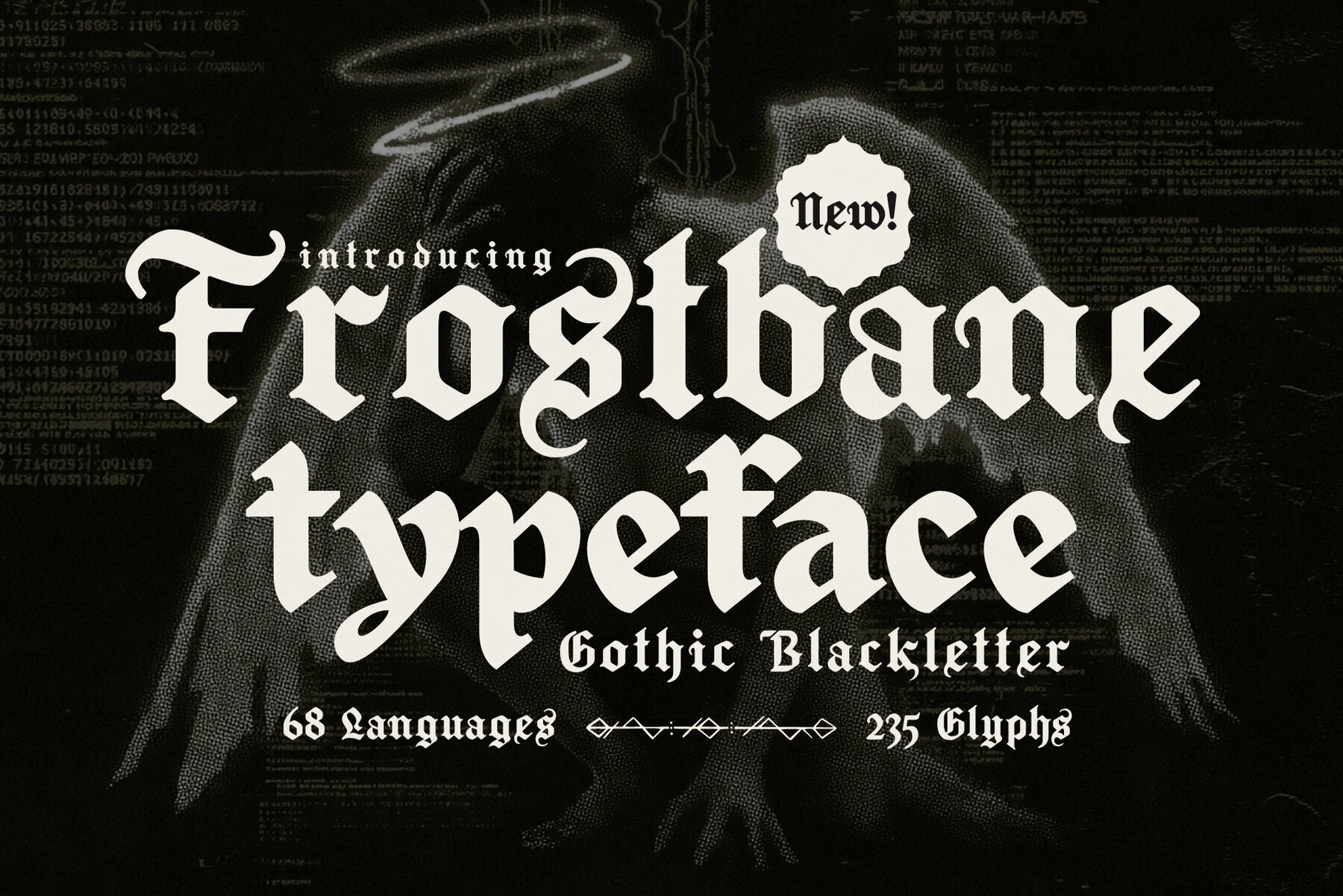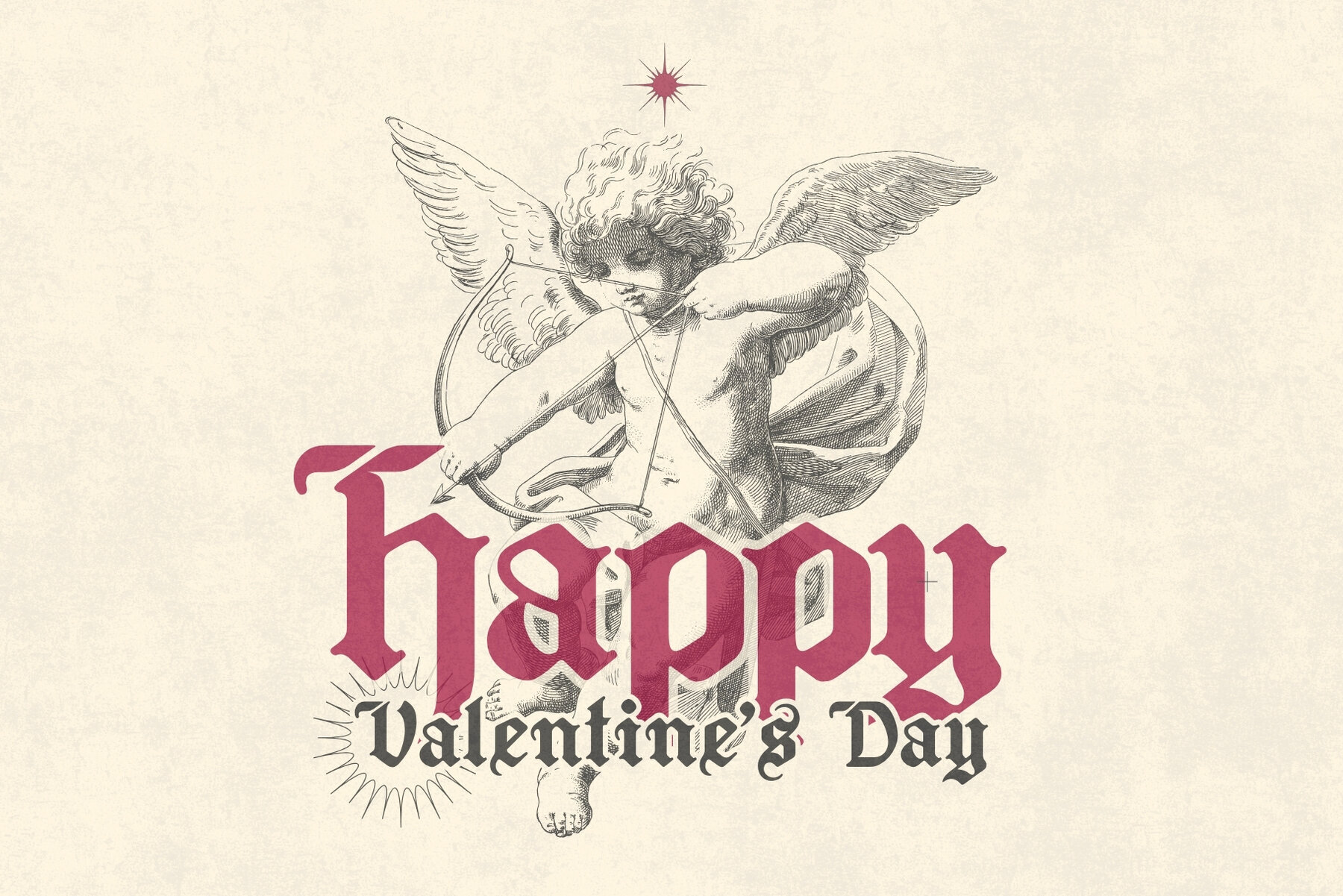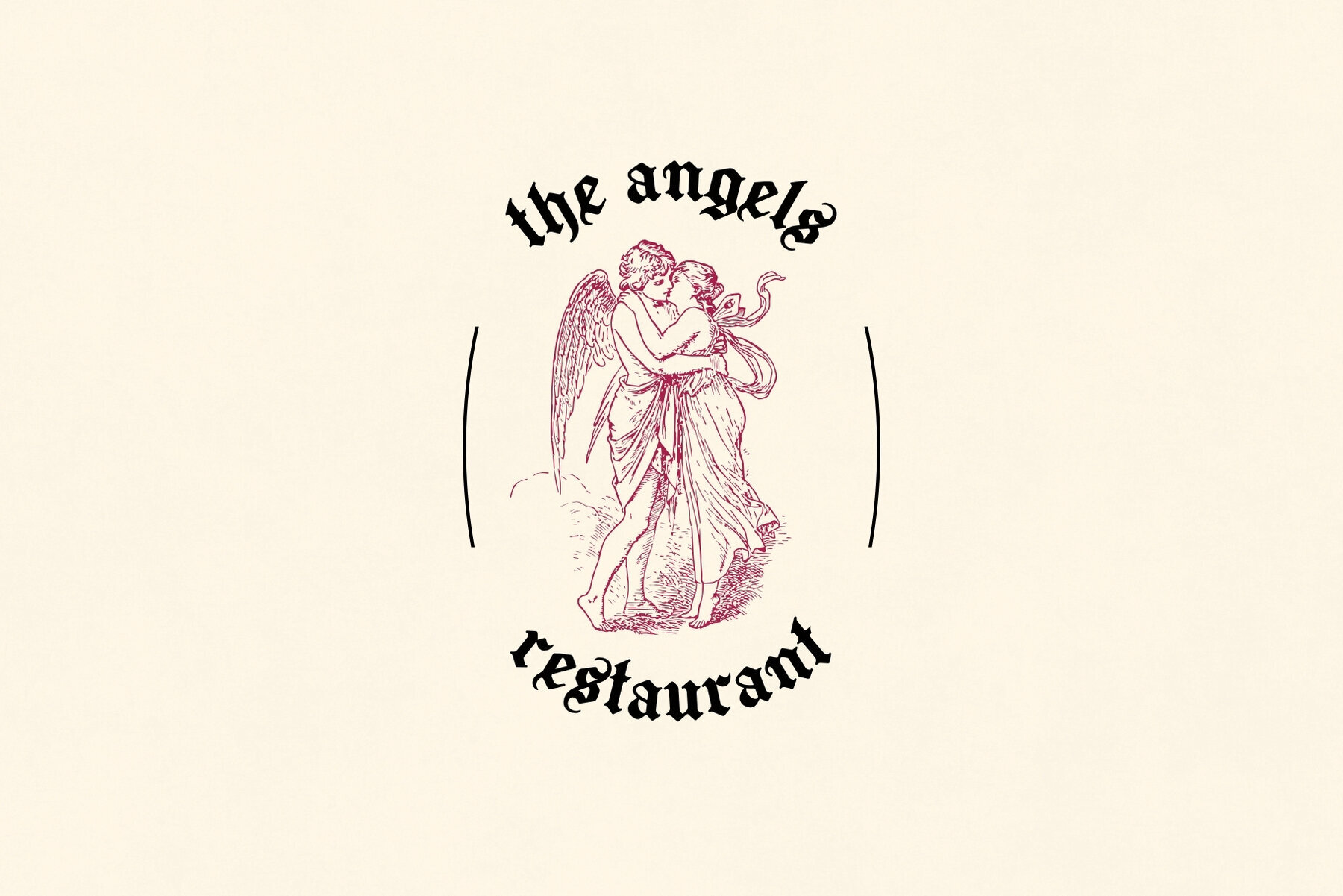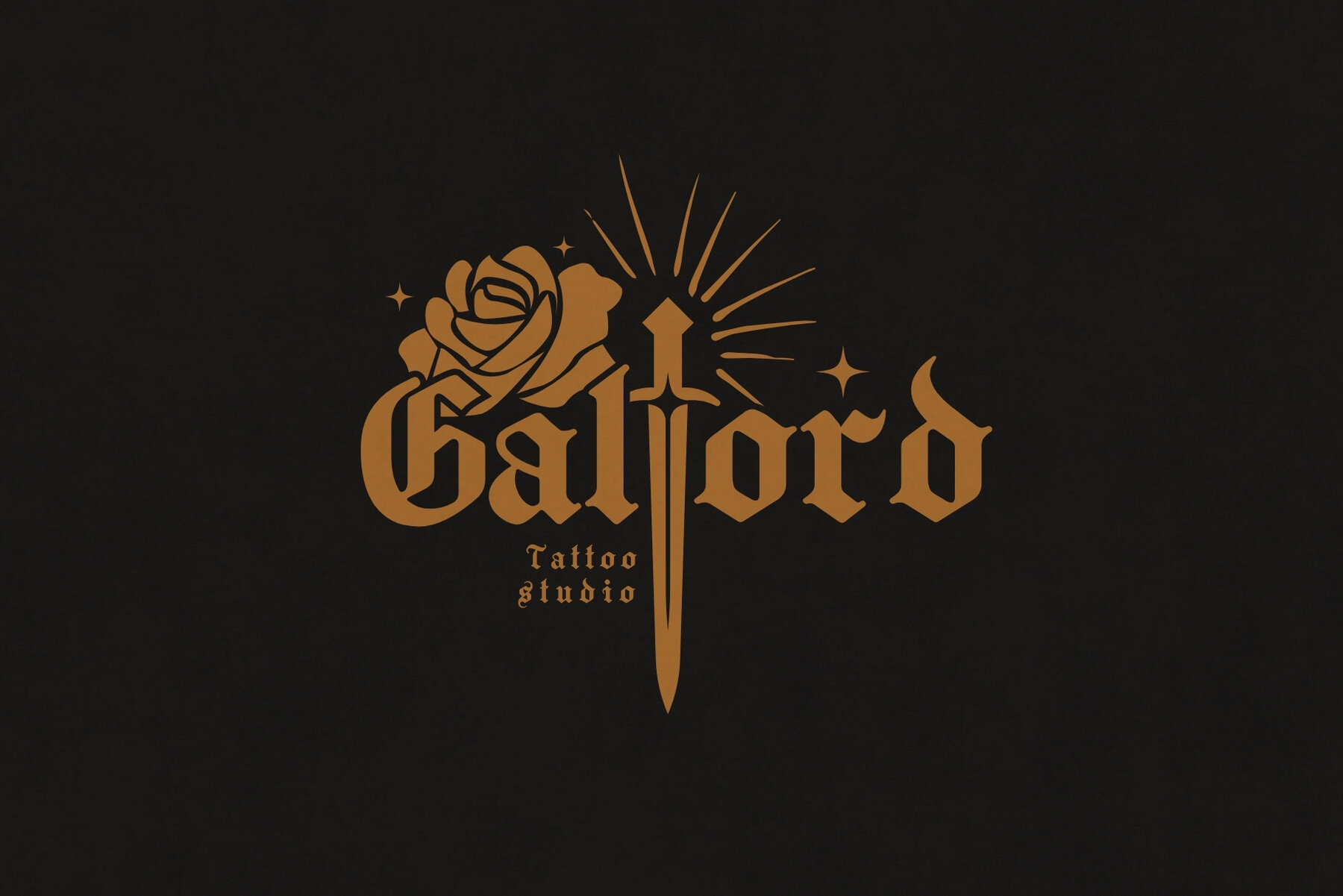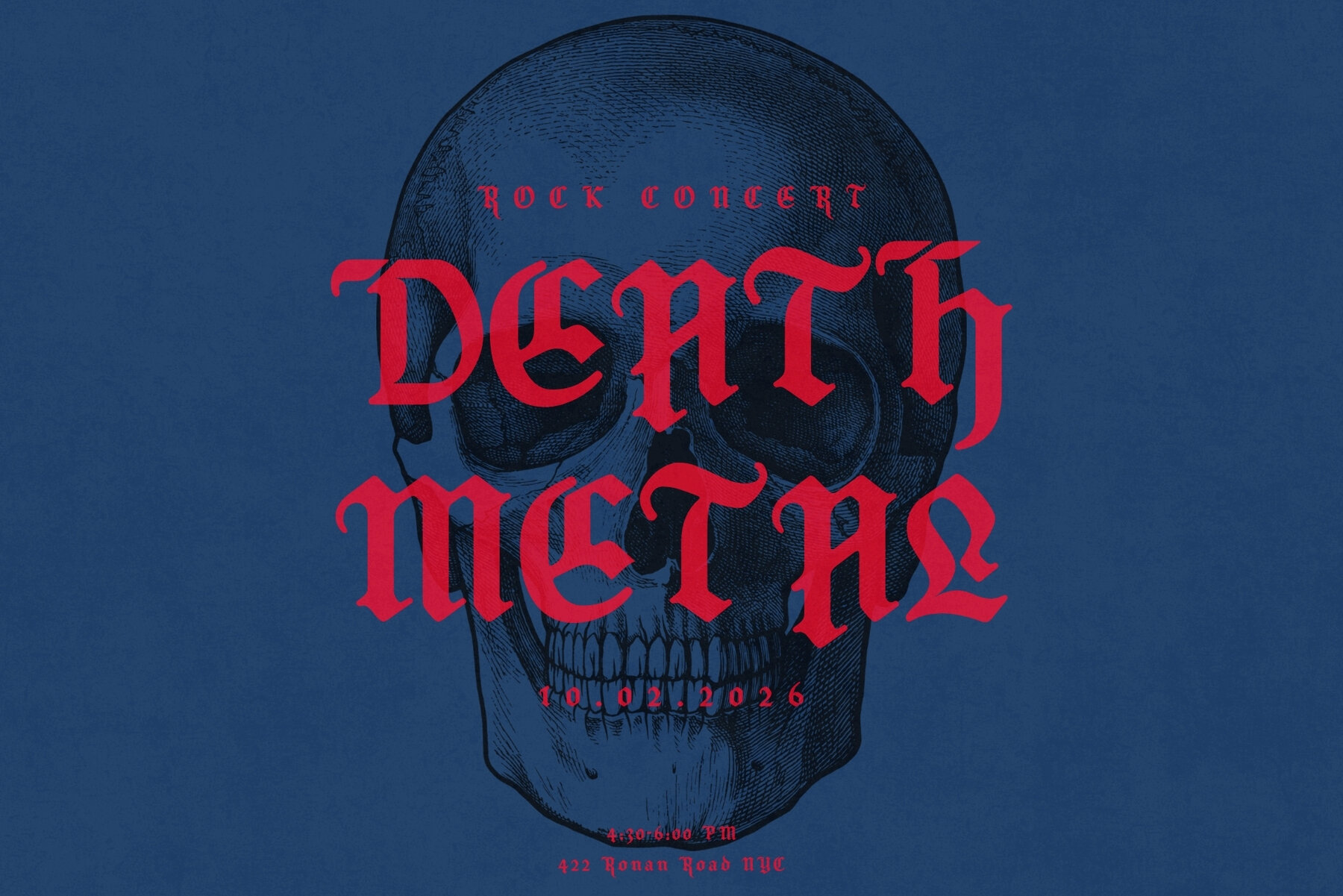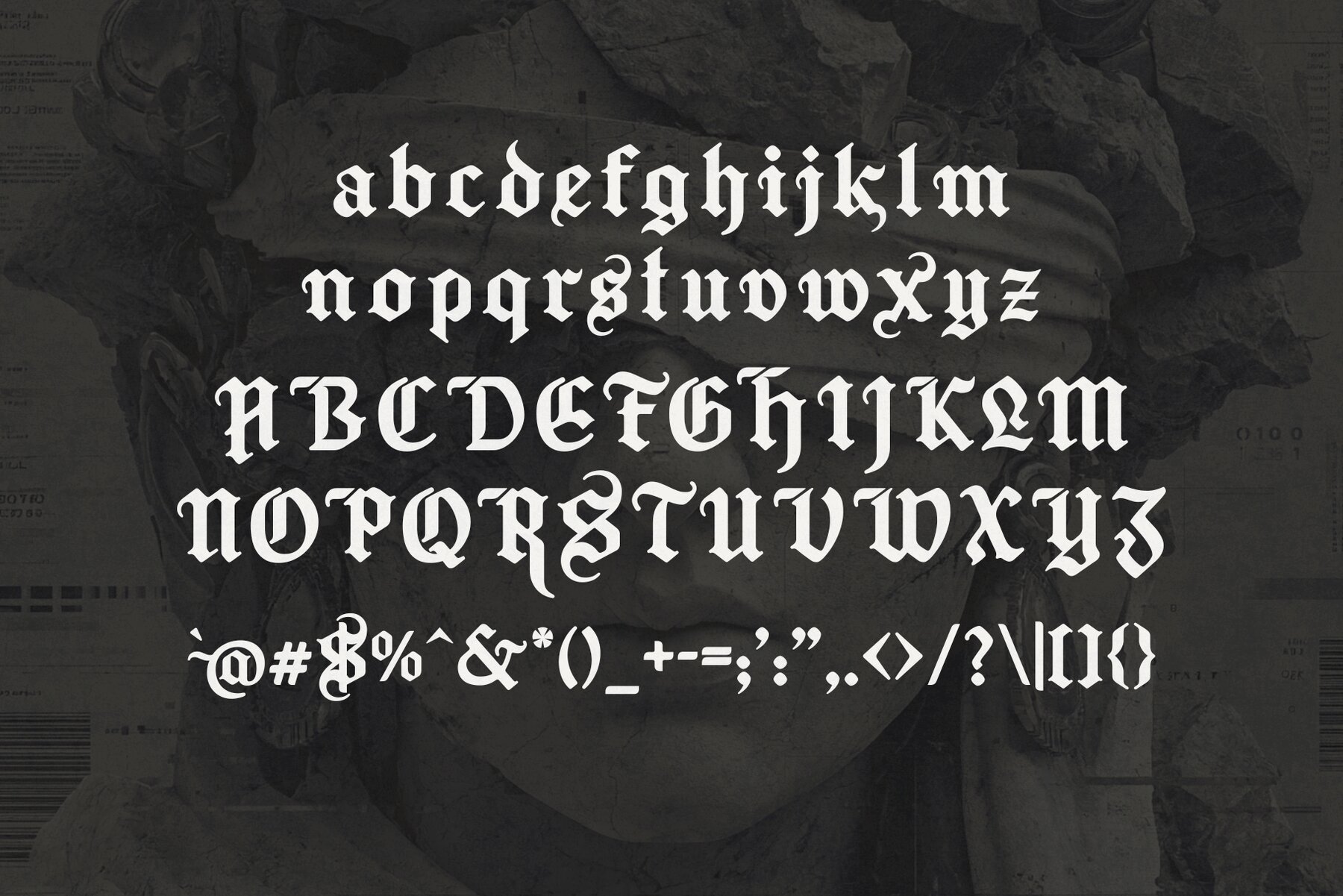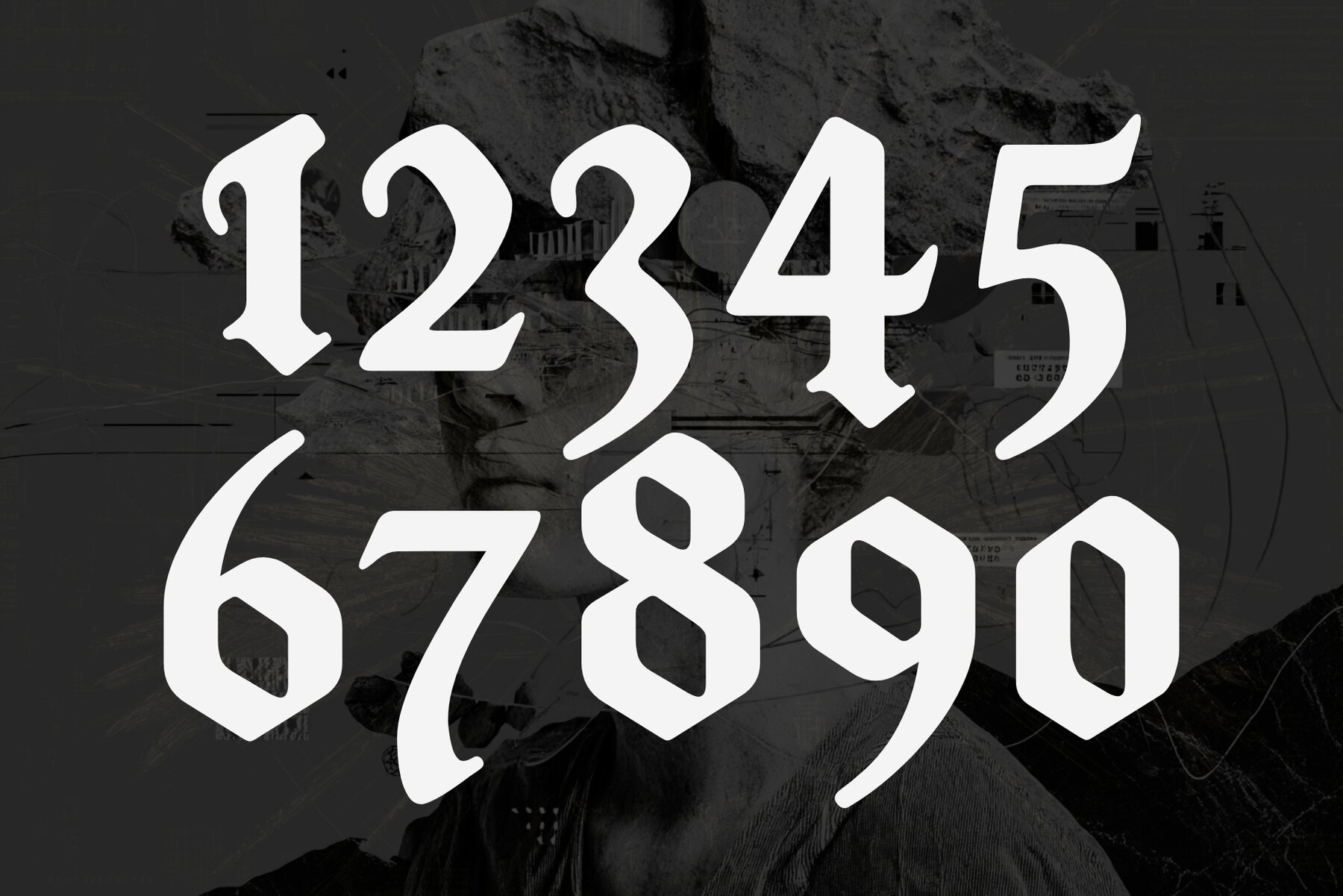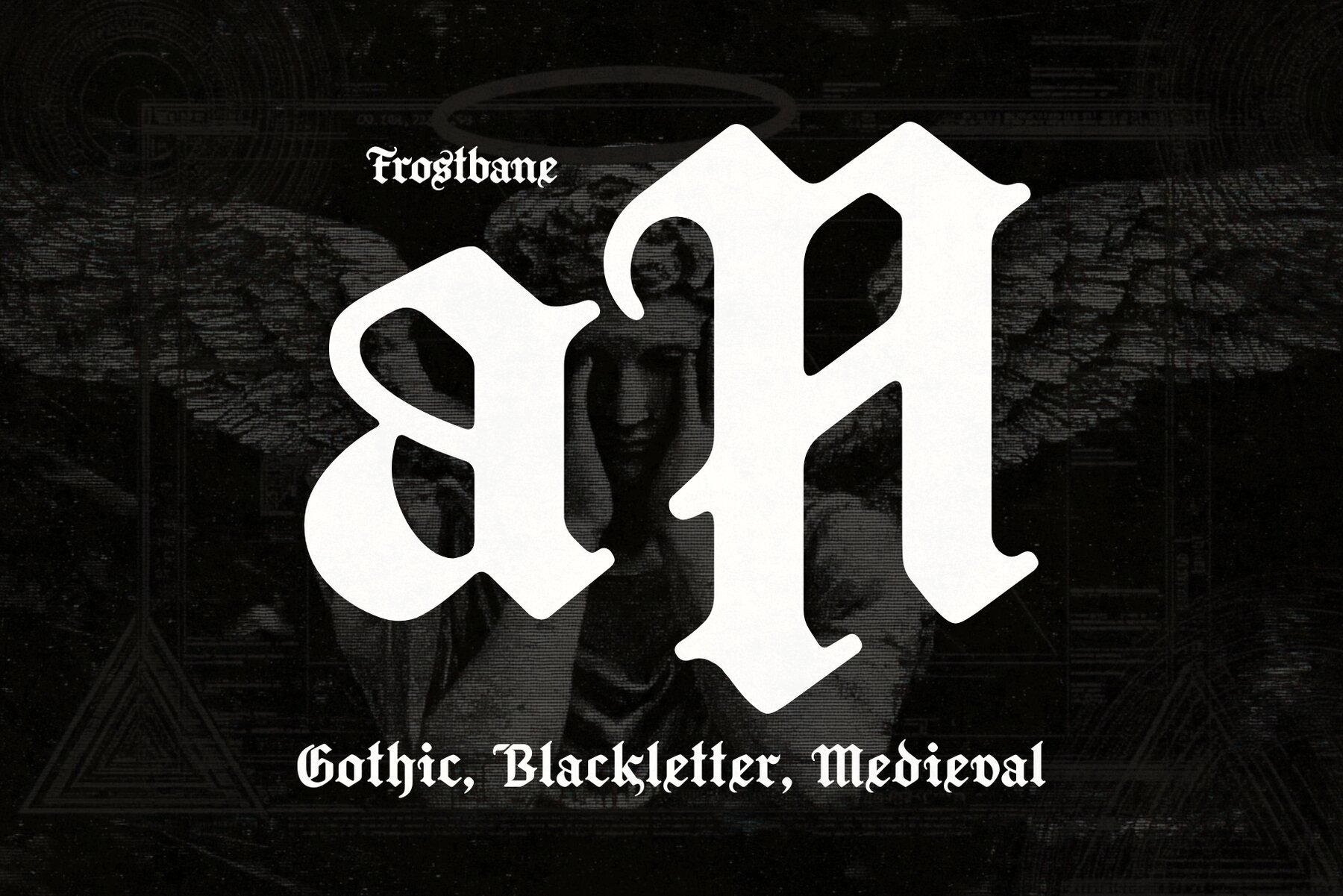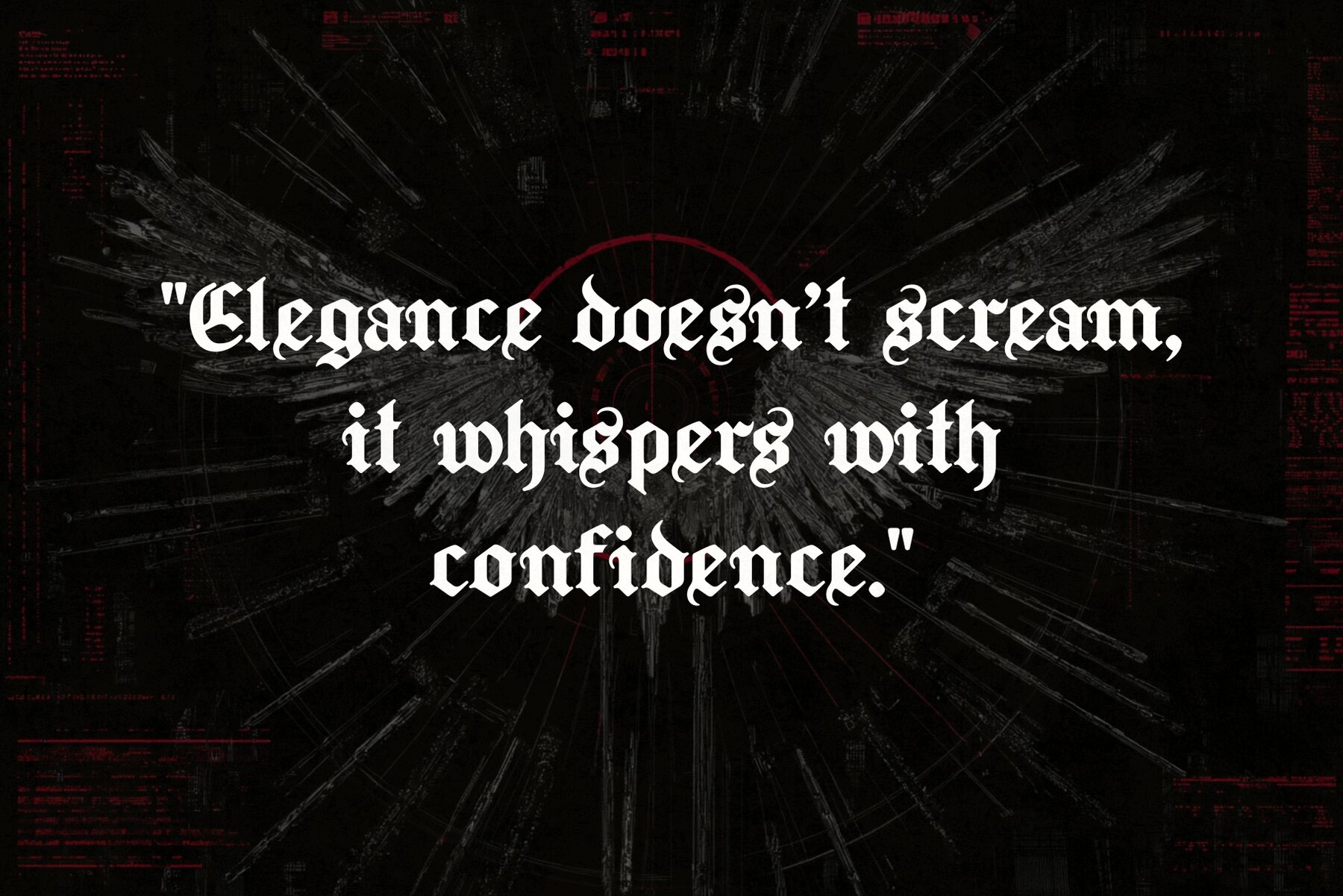
Frostbane Font
Frostbane Regular
Immerse yourself in the mystique of history with Frostbane, an exquisite gothic blackletter typeface that captures the elegant chill of ancient English manuscripts. Overflowing with dark, ornate details and rich historical character, Frostbane is designed to evoke medieval magic, mystery, and timelessness. Frostbane is inspired by the intricate hand-drawn calligraphy of Gothic Europe, making it ideal for projects that demand an ancient, regal, and commanding presence. Bring your creative visions to life with a typeface that carries the weight of centuries, offering bold and ornate typography that captivates in any context.Frostbane: Embrace Gothic Elegance
Unmatched Versatility